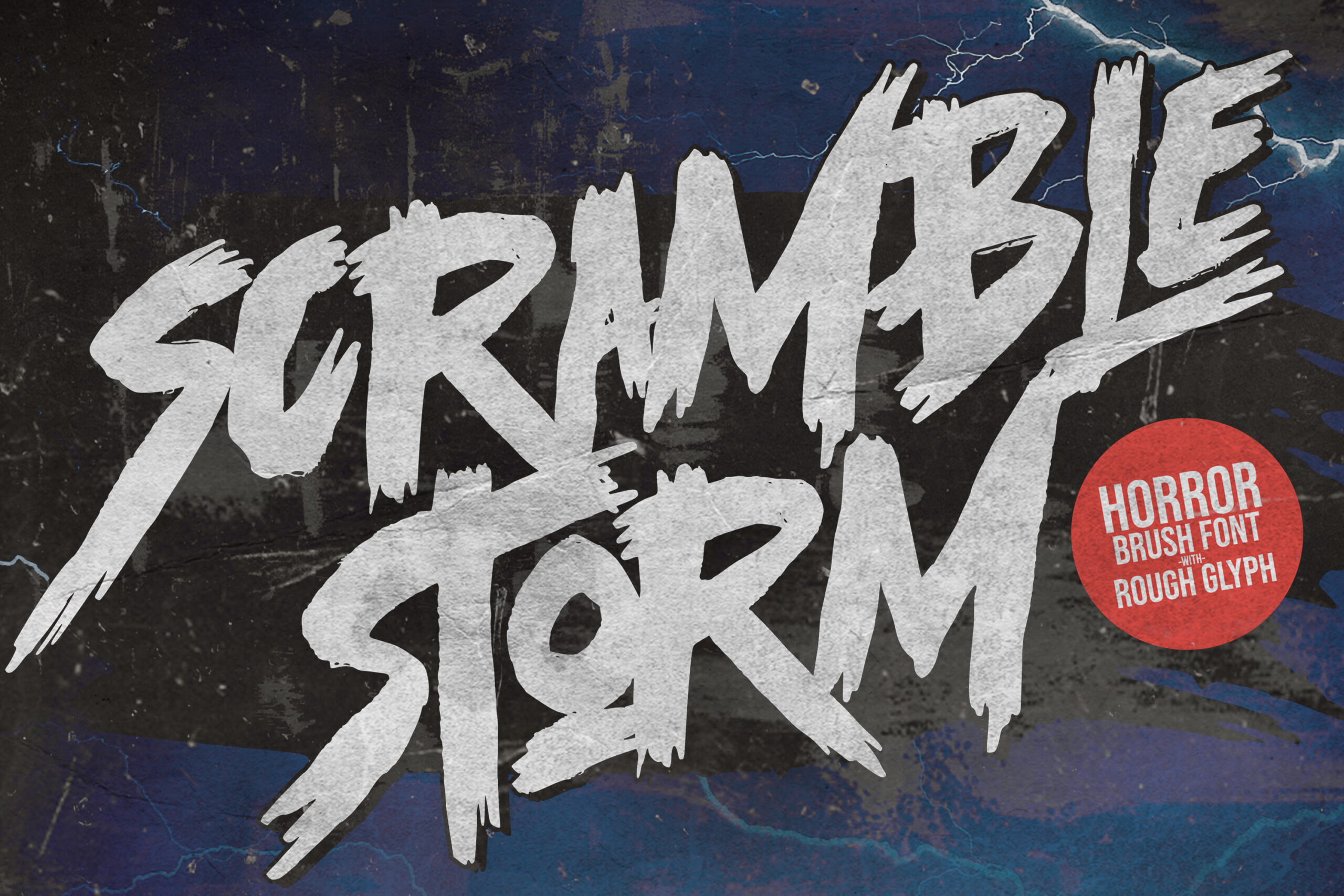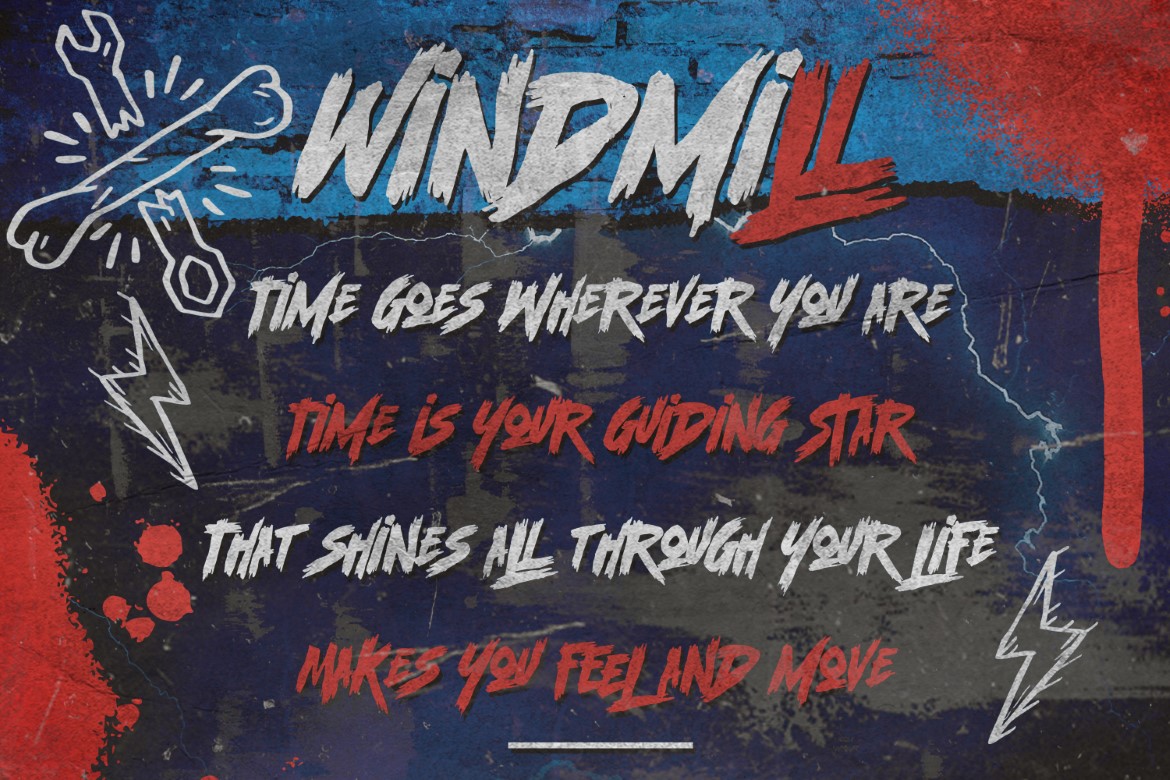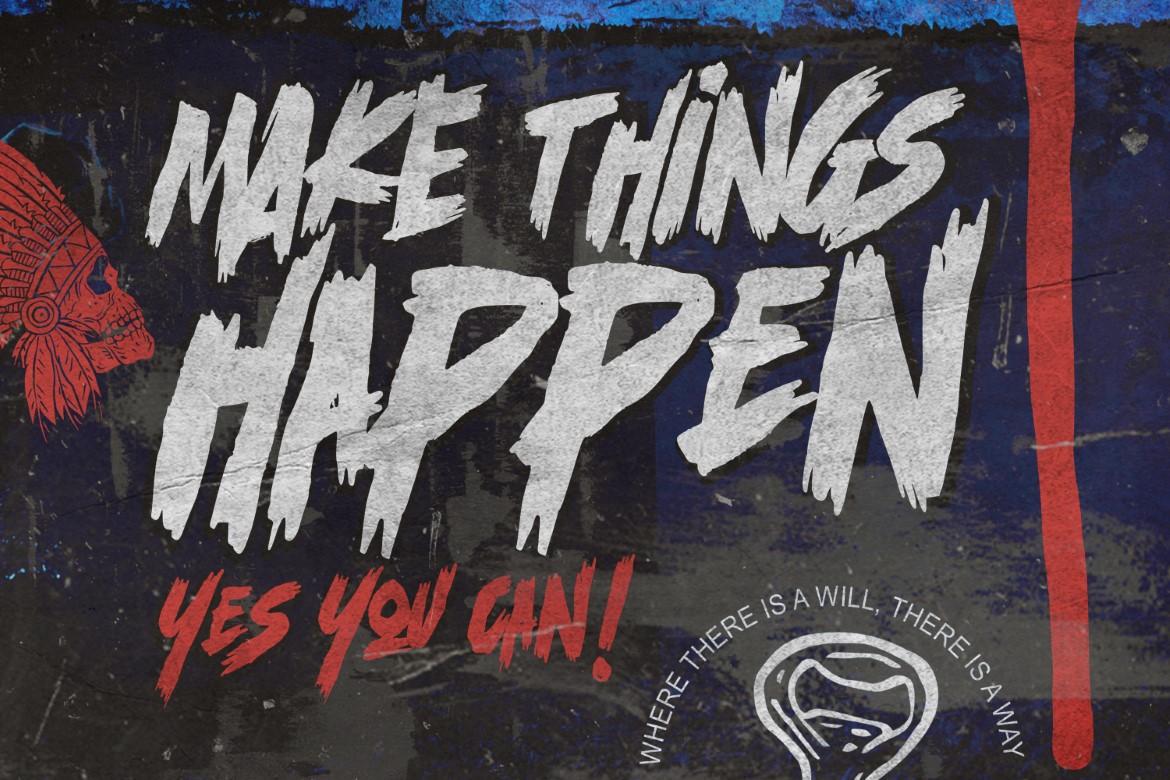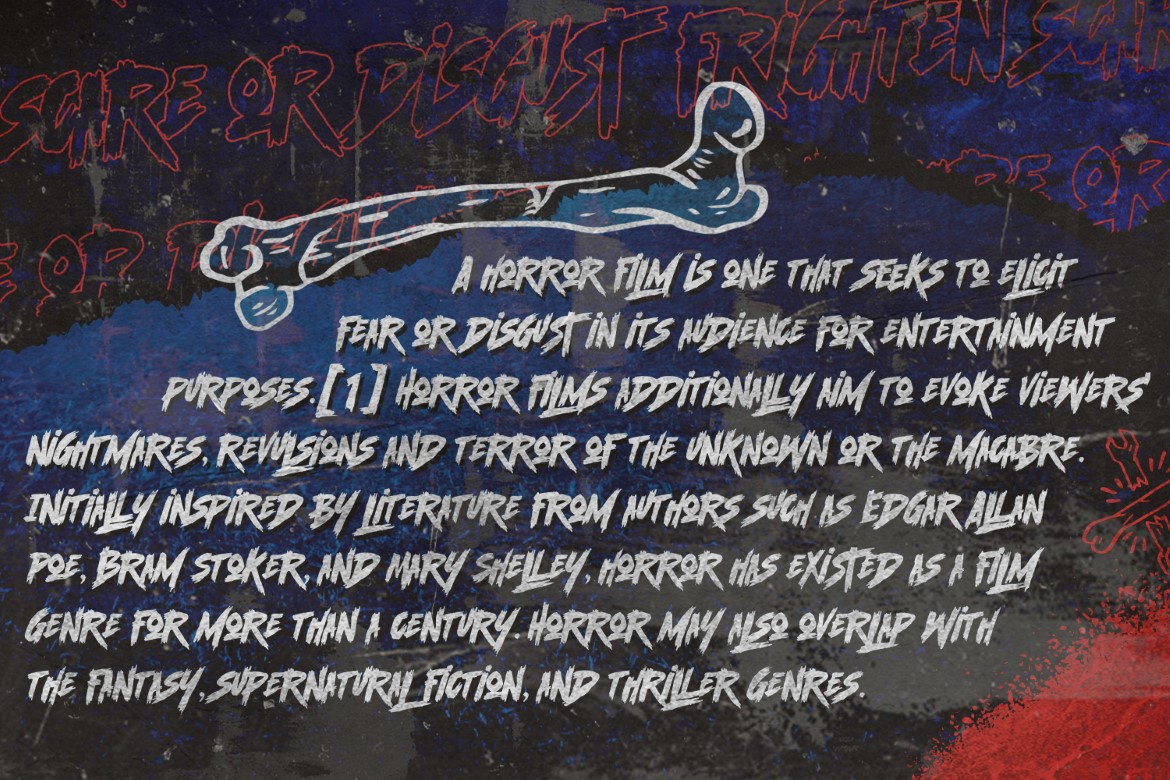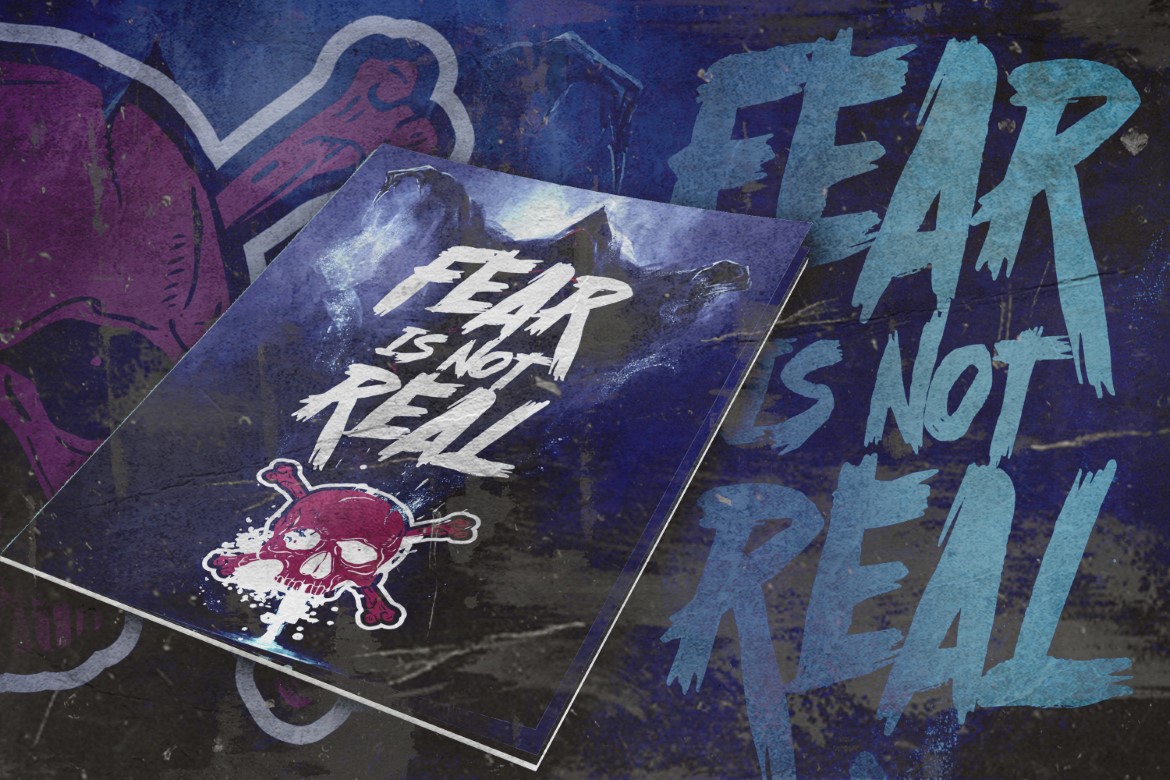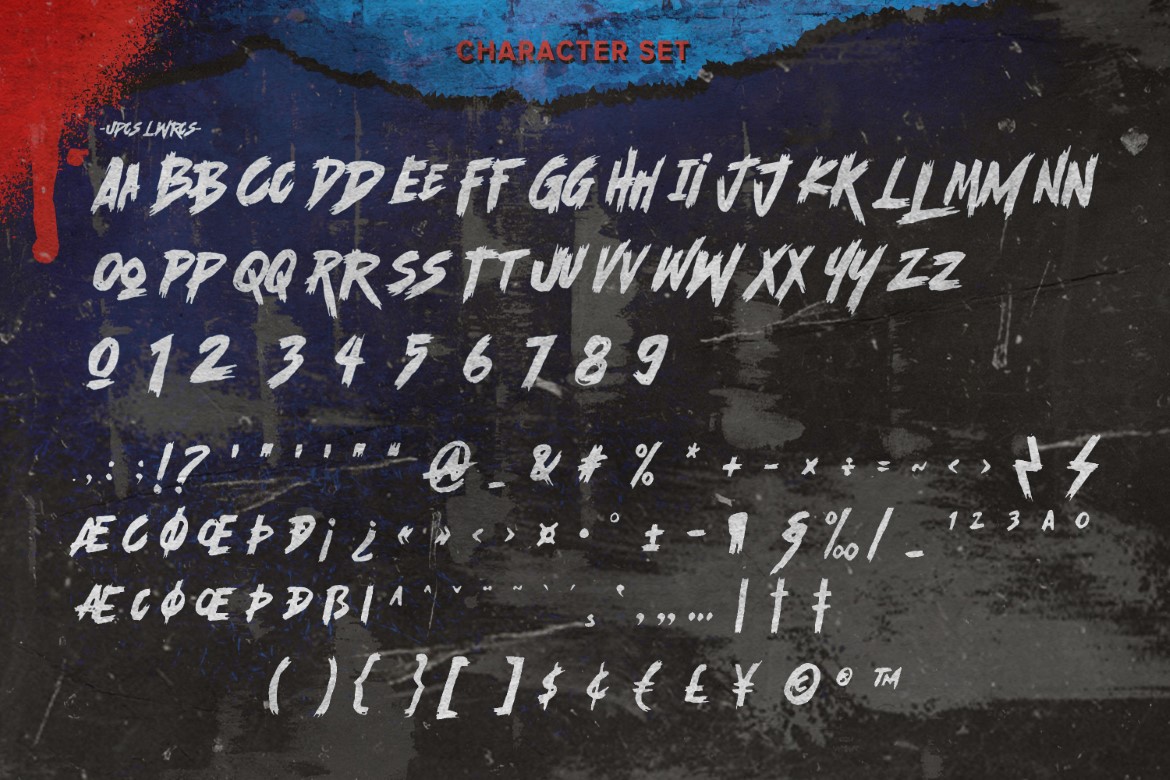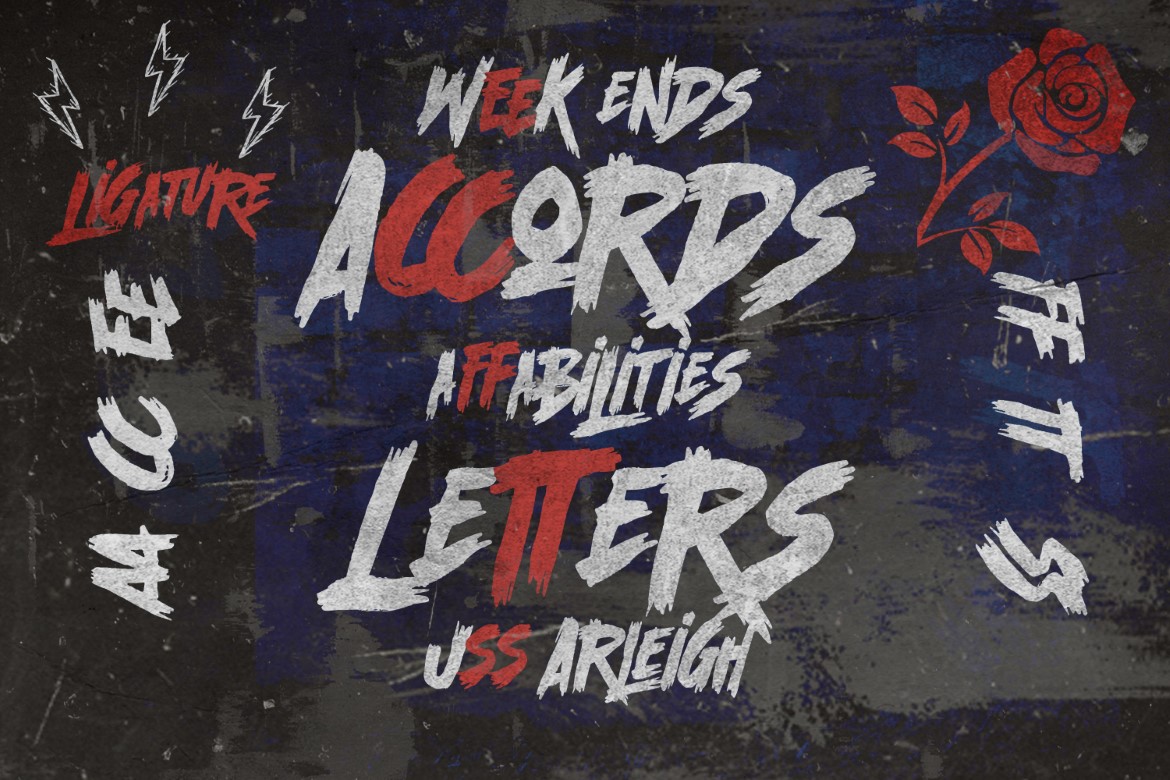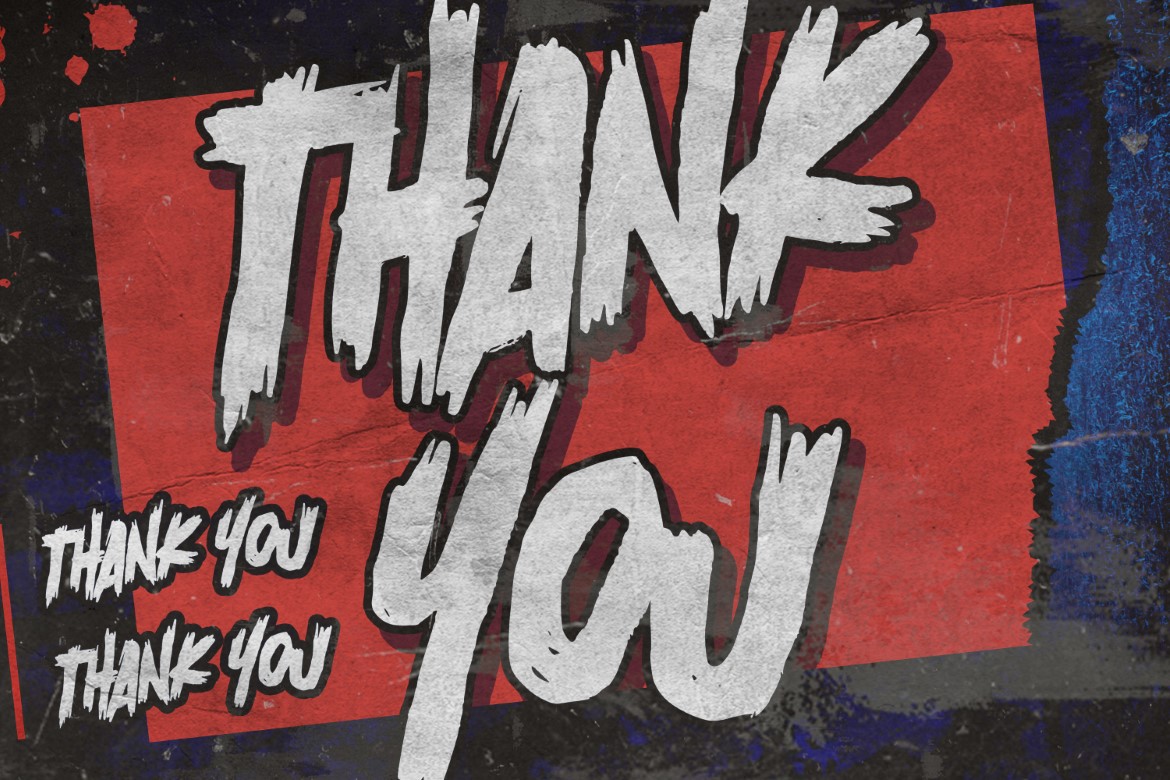
Scramble Storm – Horror Brush Font with Rough Glyphs
Scramble Storm – Horror Brush Font with Rough Glyphs is an Authentic brush Font that is written casually and quickly.
That is why Scramble Storm has a authentic, and strong characteristic more natural look.Rough Brush Typeface that is written casually and quickly
Scramble Storm Perfect for designs, branding projects, Logo design,Quotes product packaging and another Project that require cool strong brush font.
• Standard glyphs
• Ligatures glyphs
• Alternates glyphs